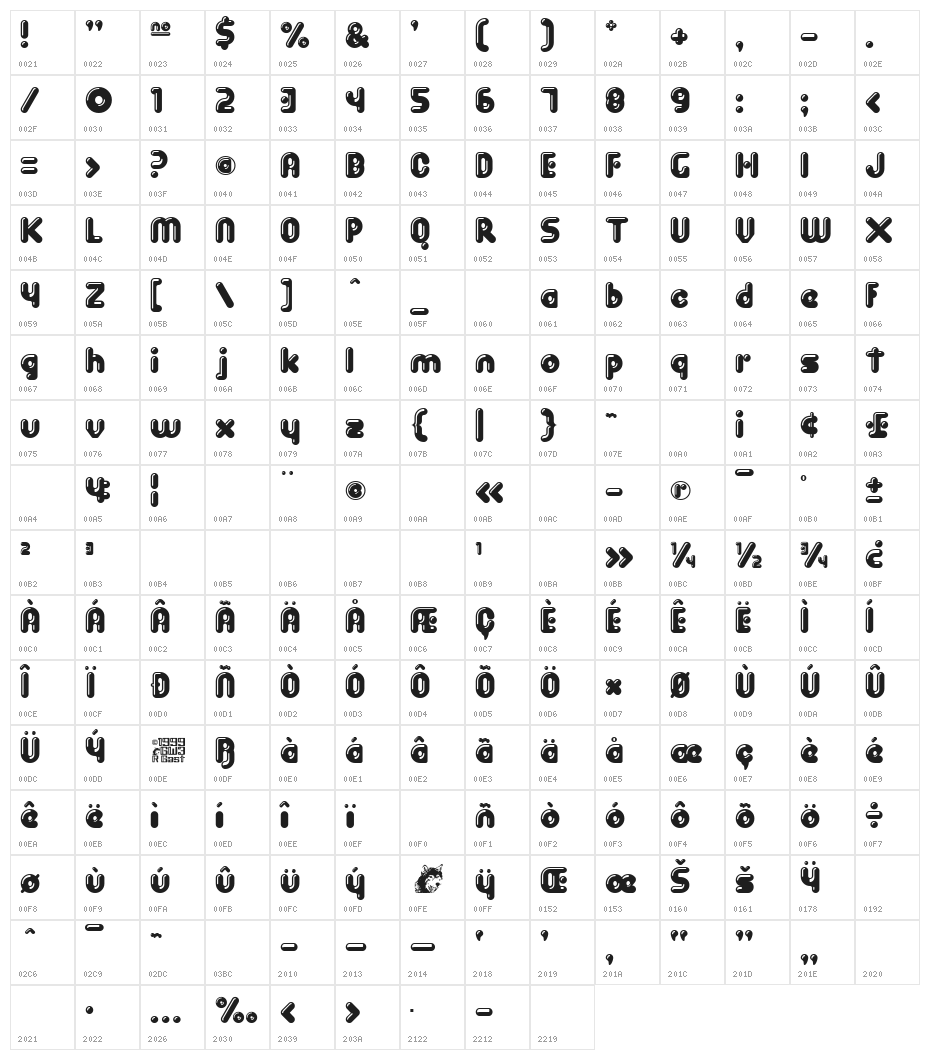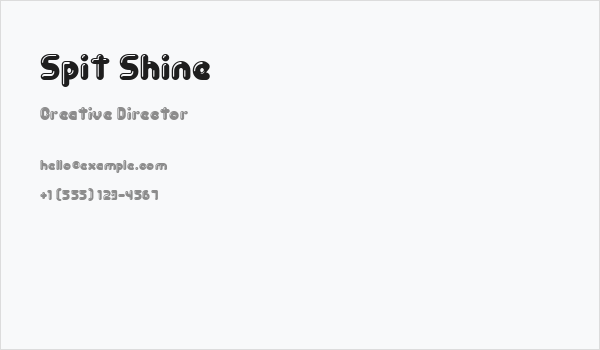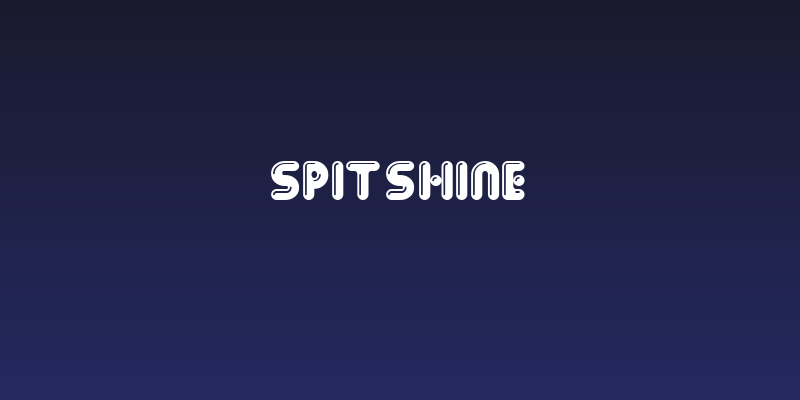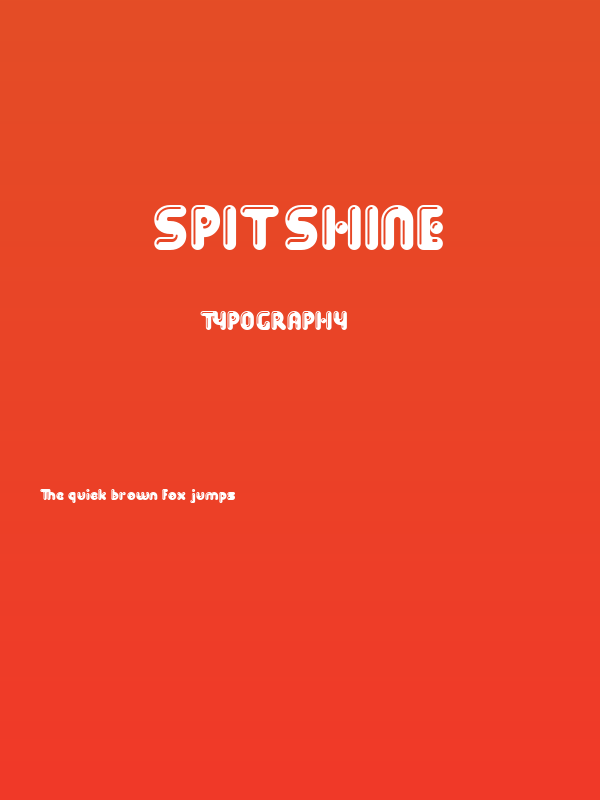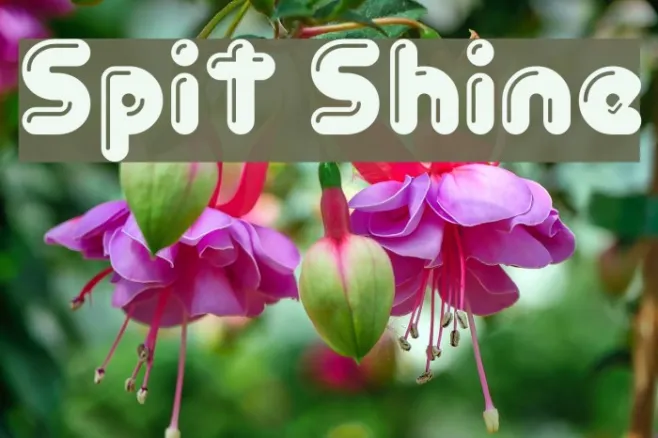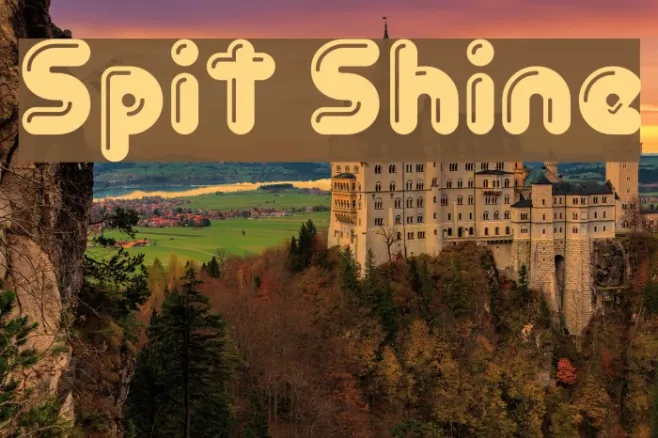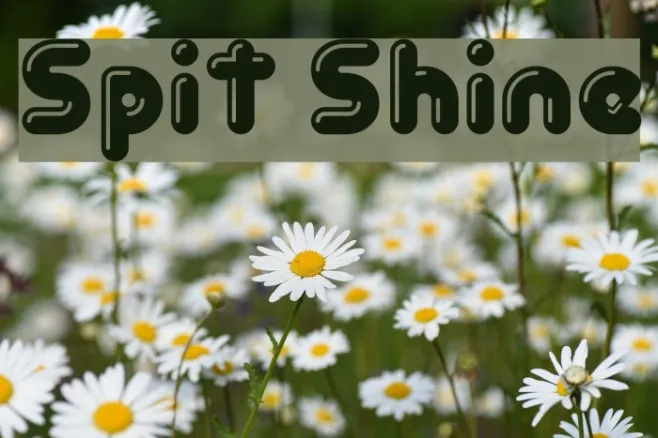
Spit Shine Font
Spit Shine Description
This font is a bold and playful decorative typeface with a unique bubble-like appearance. The characters are rounded and filled, giving them a three-dimensional effect. The uppercase and lowercase letters maintain a consistent style, with a thick, uniform stroke that creates a sense of fun and whimsy. The numbers and special characters follow the same design principles, ensuring a cohesive look across all elements. The font's distinct style makes it stand out, making it suitable for eye-catching designs.
| Overall Style | Playful, Fun, Decorative |
| Proposed Projects | Ideal for children's book covers, playful branding, party invitations, and eye-catching posters. |